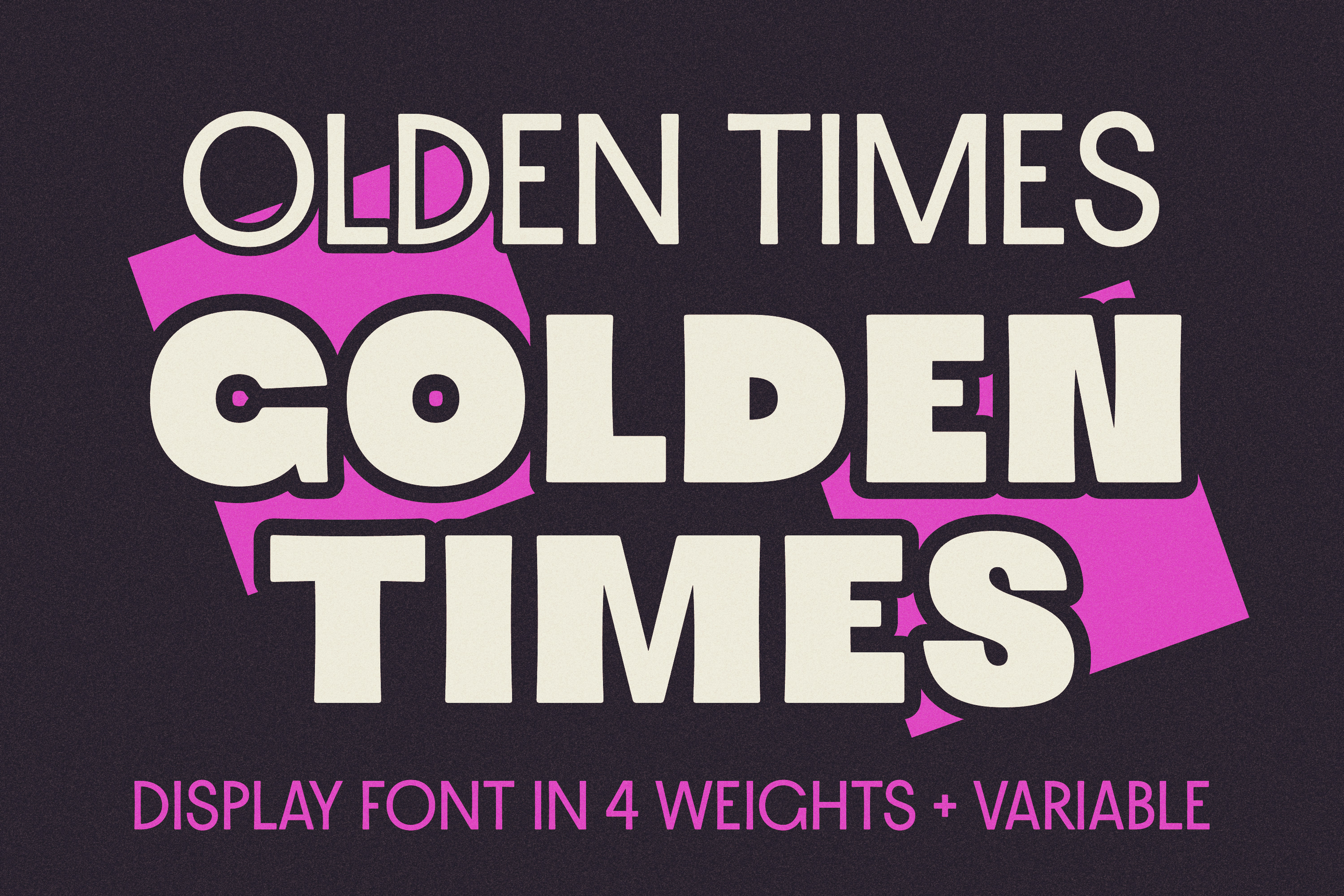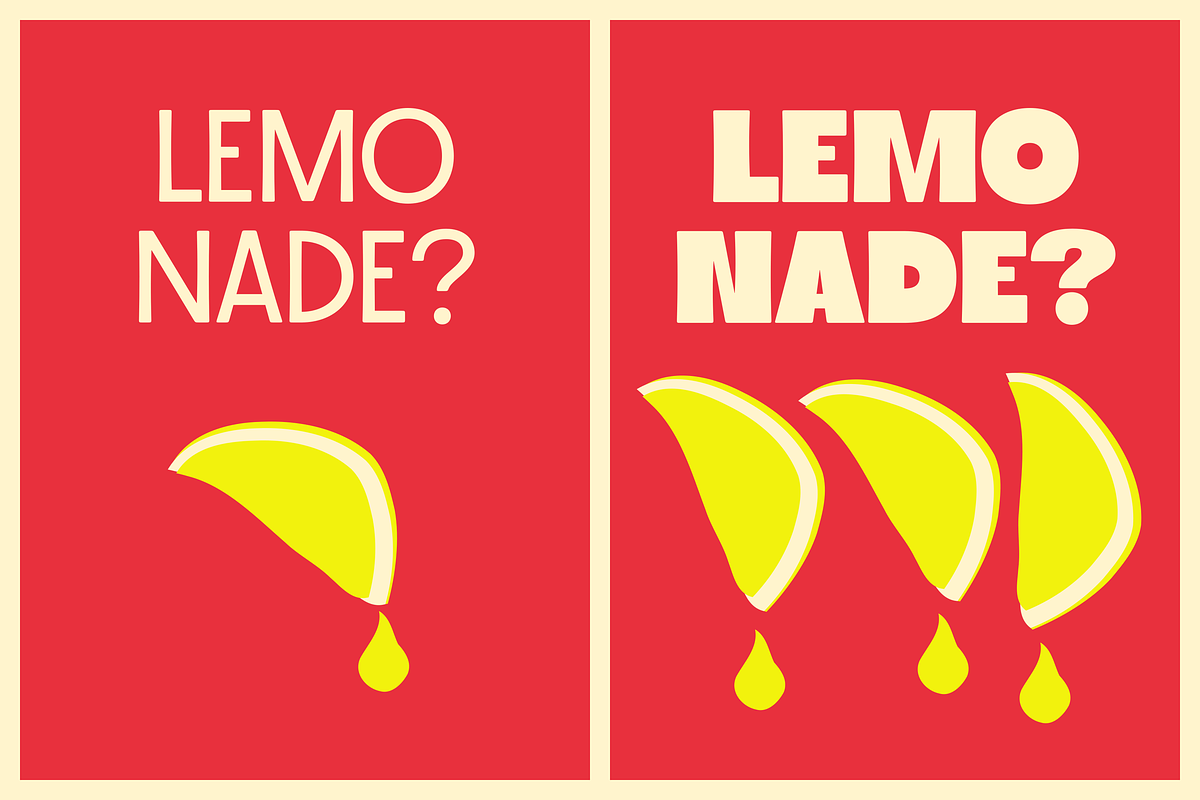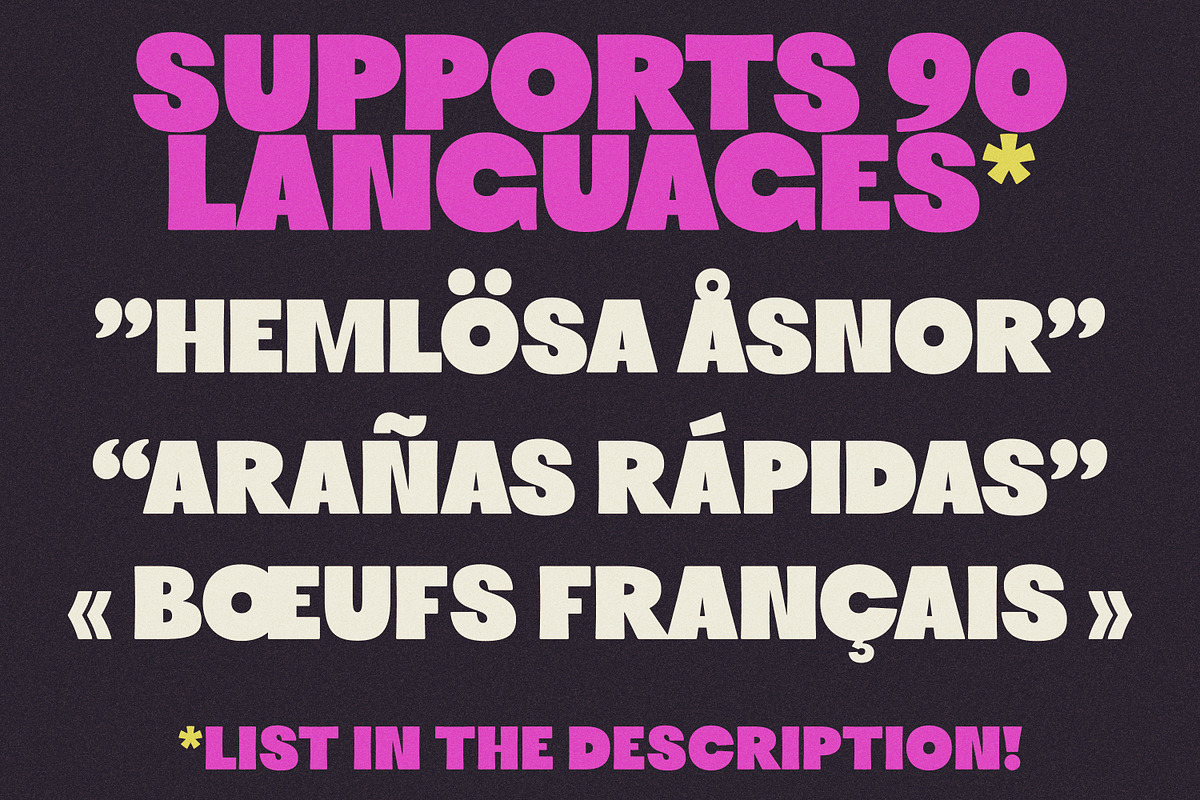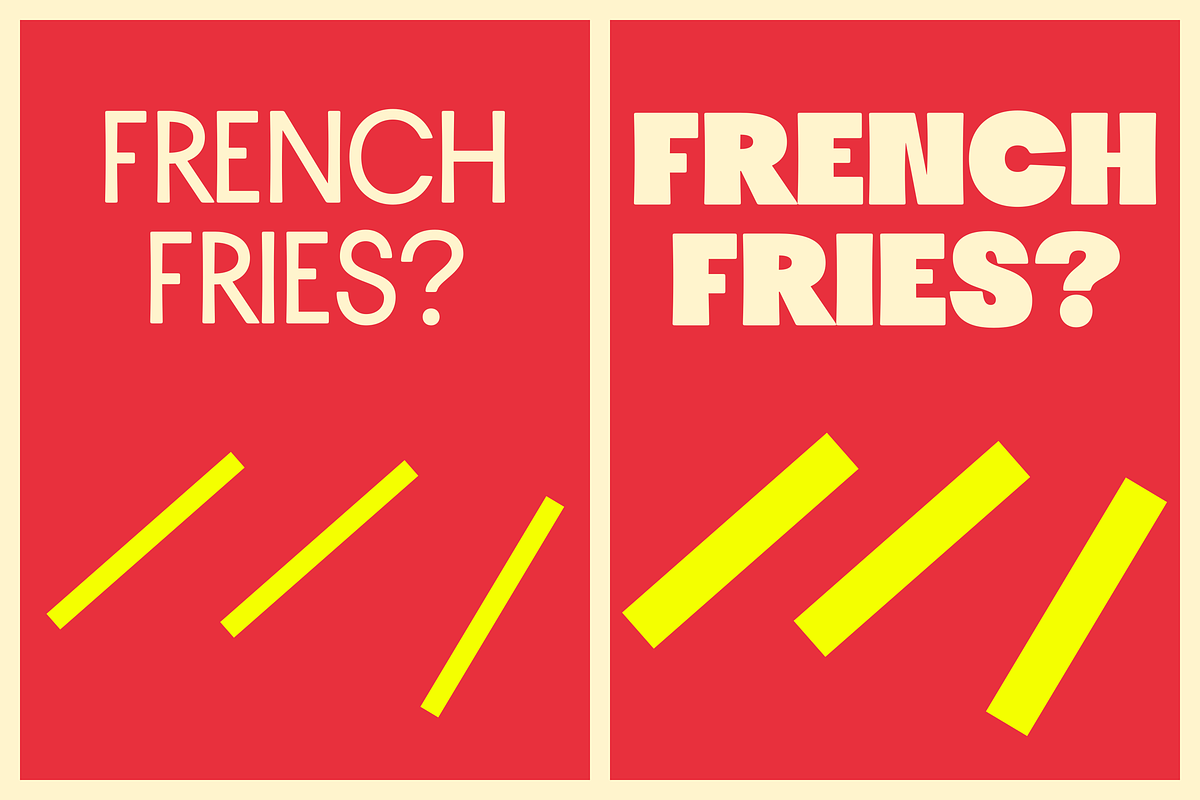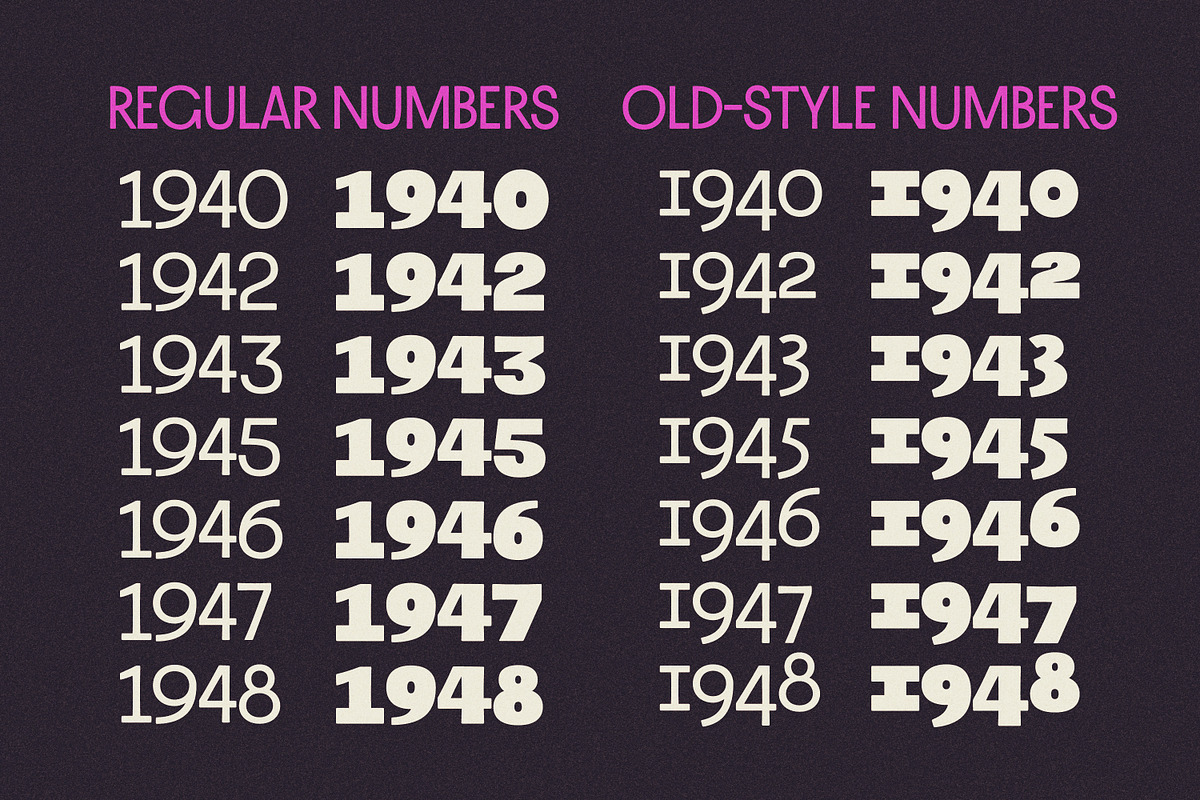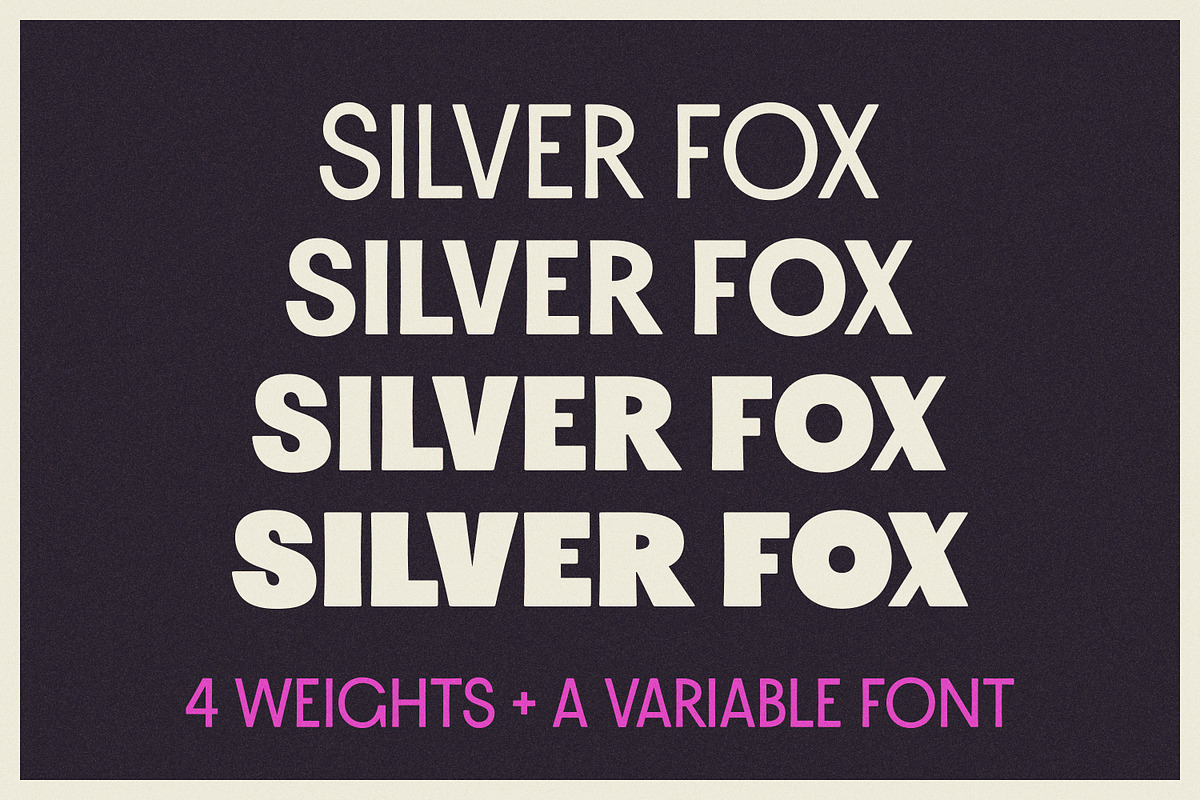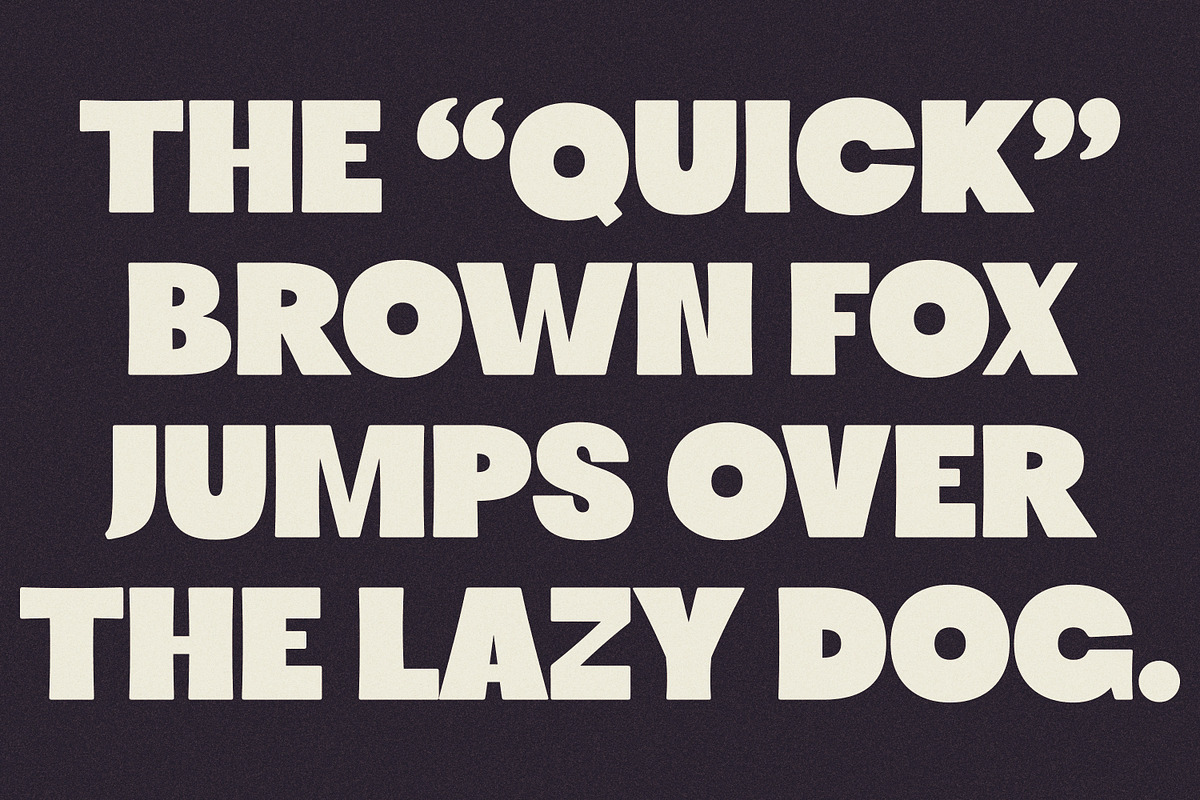
Olden Times Golden Times - Font
Olden Times Golden Times is a display typeface with a vintage feel. That's it. It's perfect for logos, branding, book covers, posters and such.